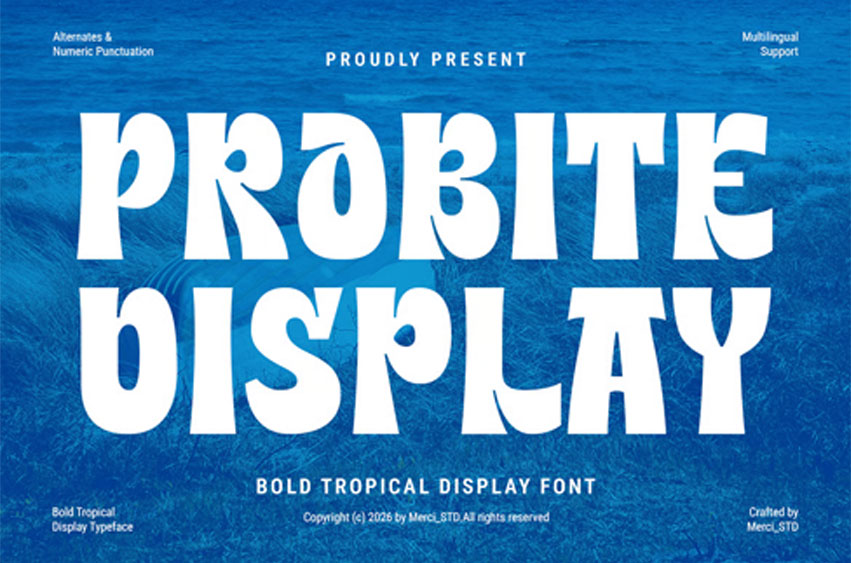
Probite Font Display is a bold tropical display font with strong playful character and eye-catching shapes.
Inspired by summer vibes and tropical visual themes, this font is perfect for posters, branding, menus, travel projects, event promotions, packaging, and vibrant creative layouts. Probite brings fresh energy and bold personality.
• Unique Hand-Drawn Style